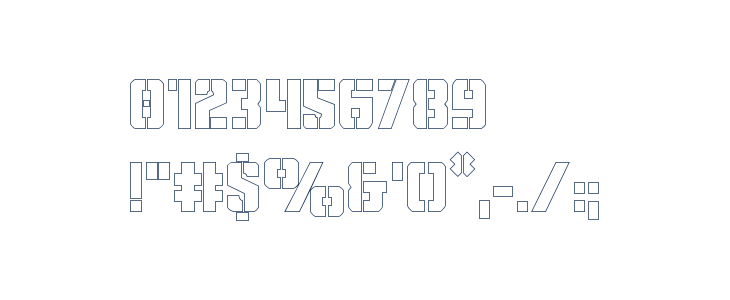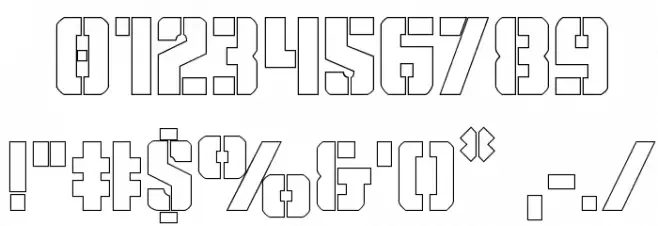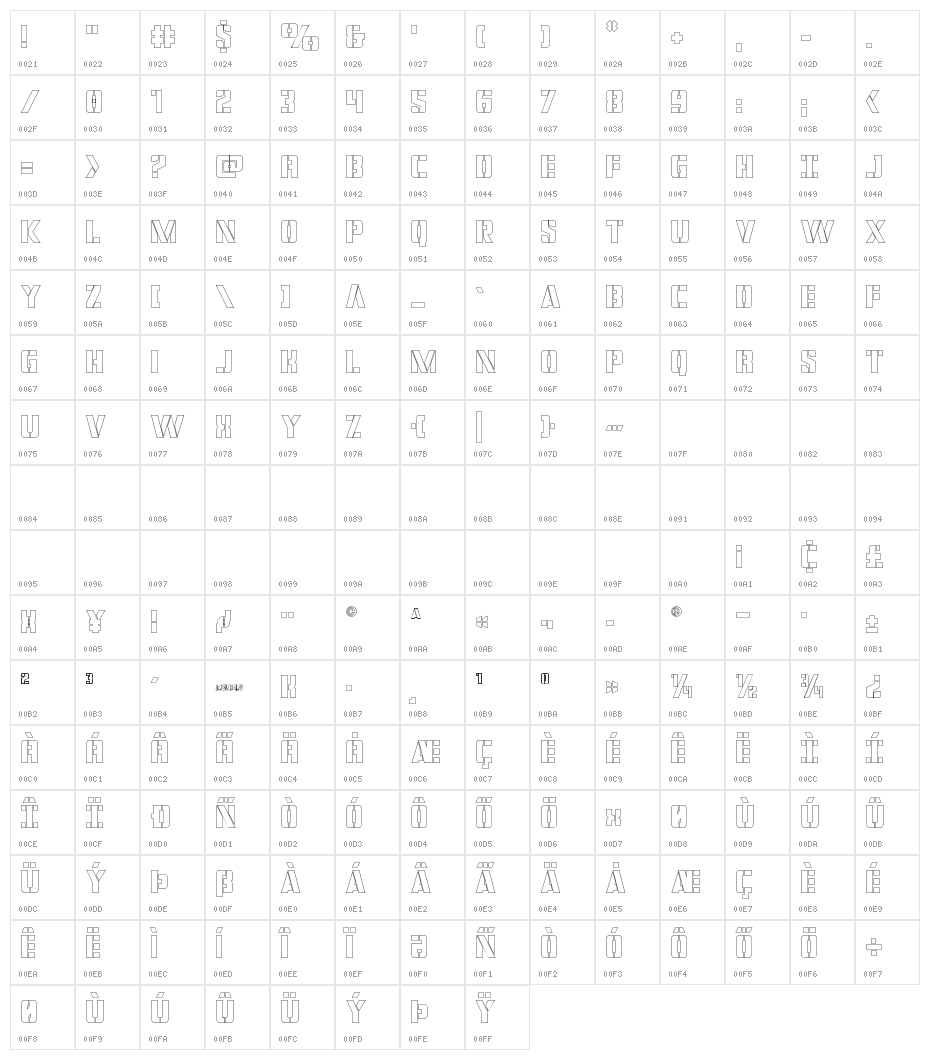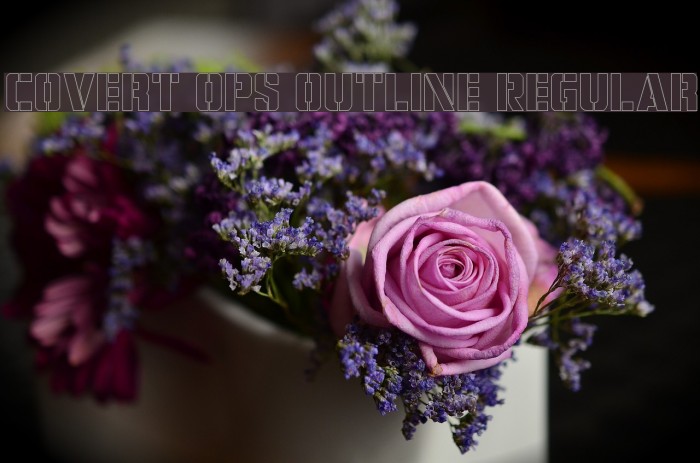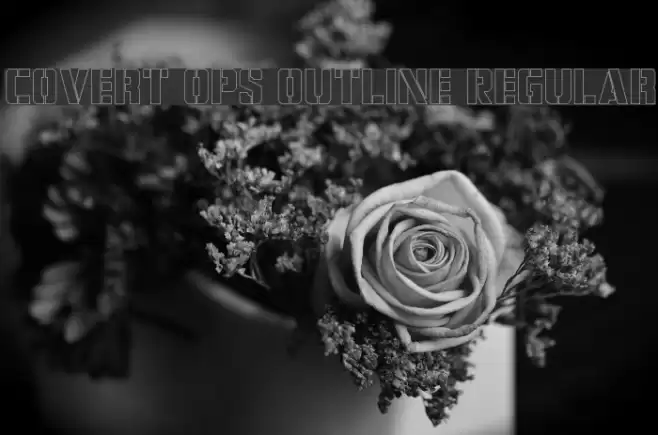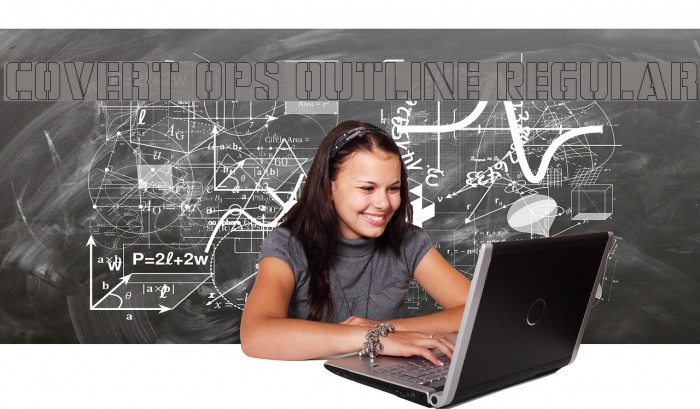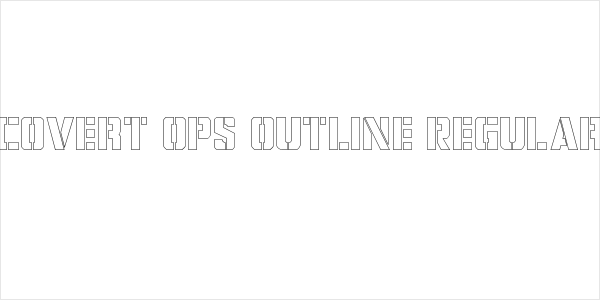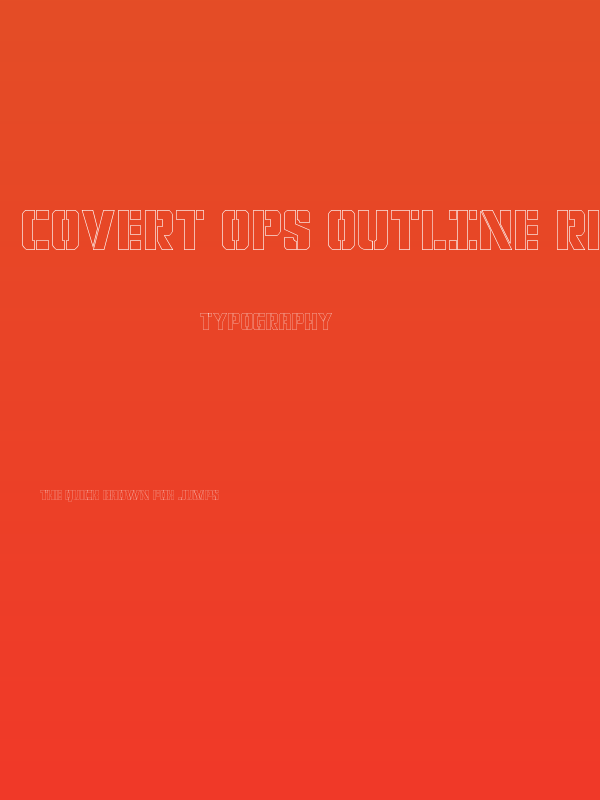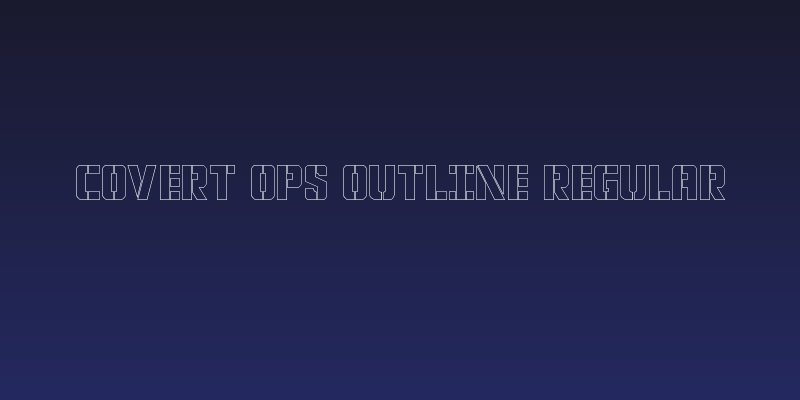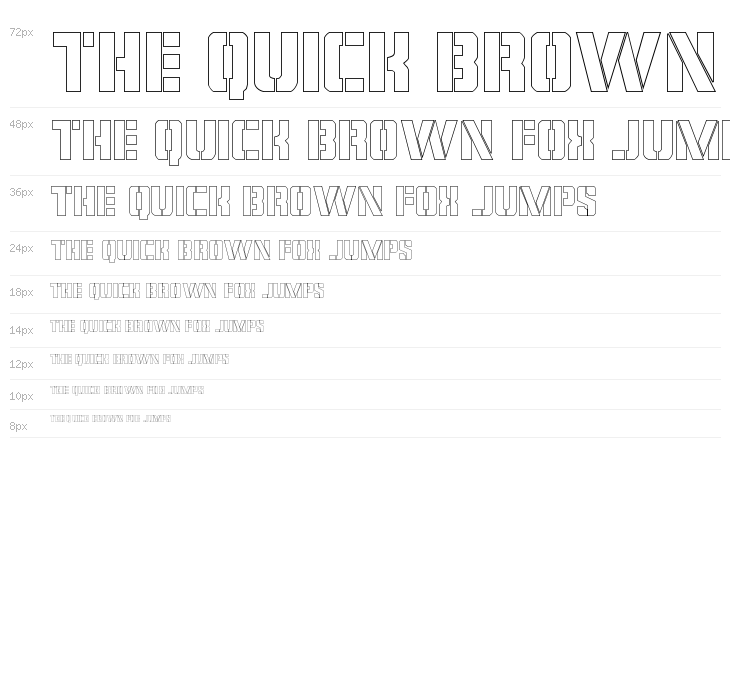
Covert Ops Outline Regular Font
Covert Ops Outline Regular Description
This font features a bold, geometric outline style with a distinct military or tactical aesthetic. The characters are constructed with straight lines and sharp angles, creating a sense of precision and strength. The outline design gives it a unique, hollow appearance, making it stand out in any design. The uppercase and lowercase letters maintain a consistent structure, while the numerals and special characters complement the overall style. This font is ideal for projects that require a strong, impactful visual presence.
| Proposed Projects | Ideal for military-themed designs, video game titles, posters, and branding that requires a strong, impactful look. |